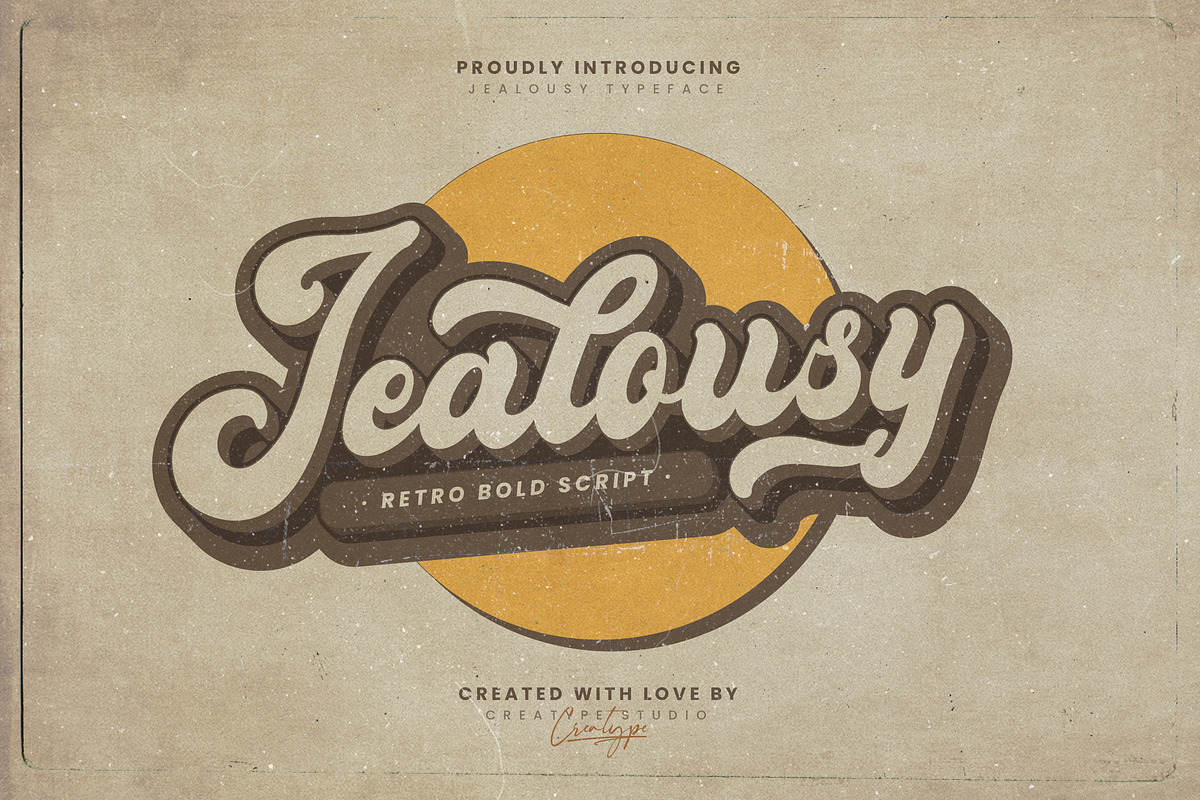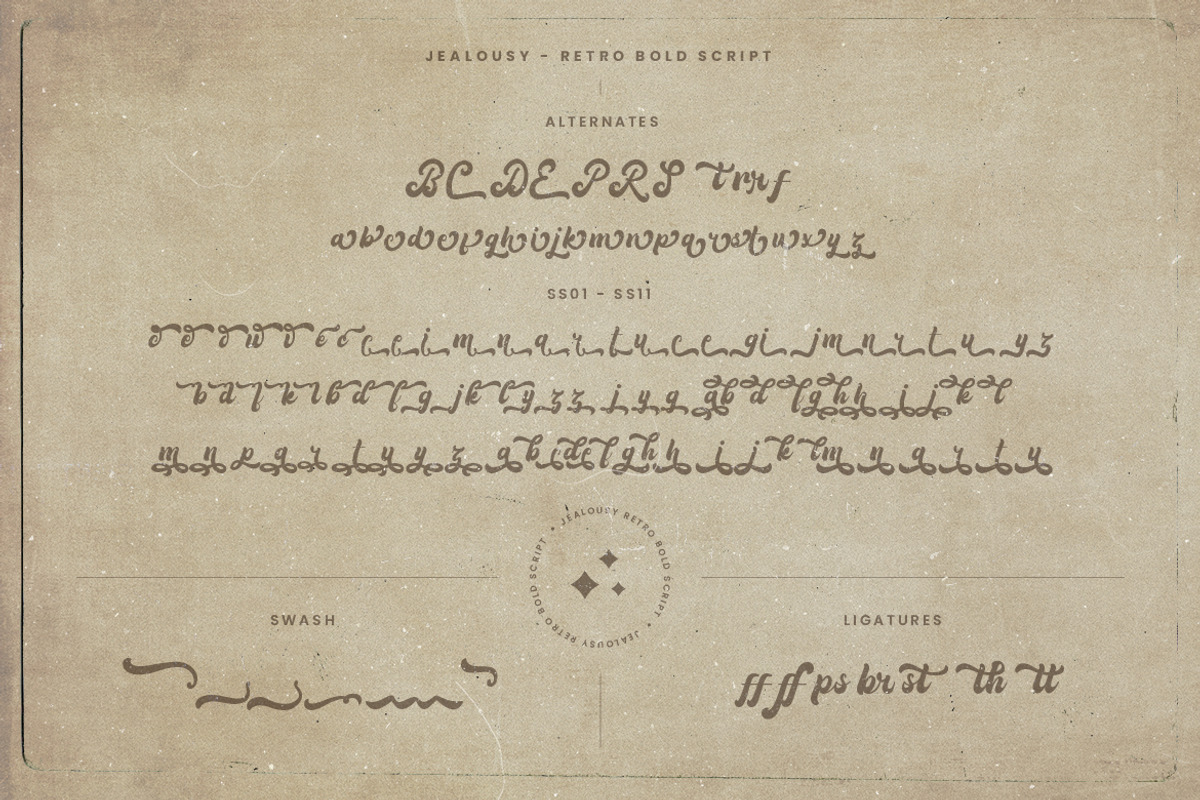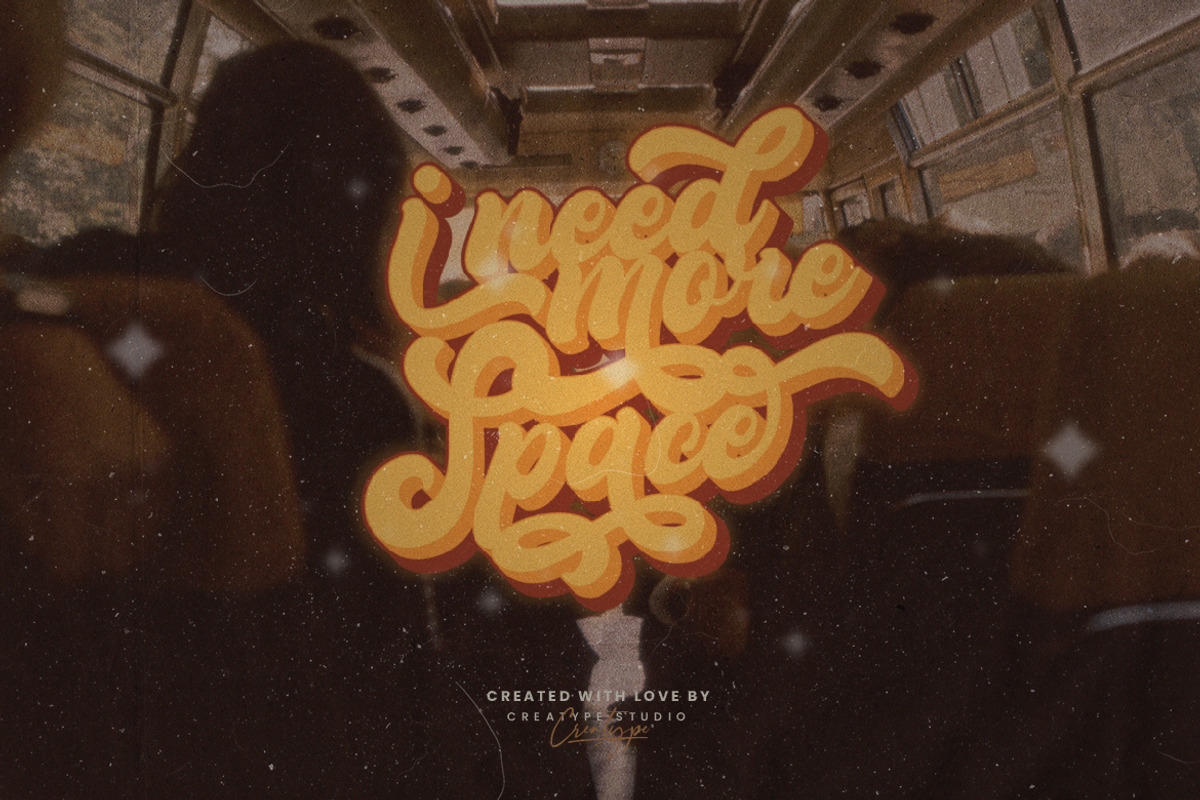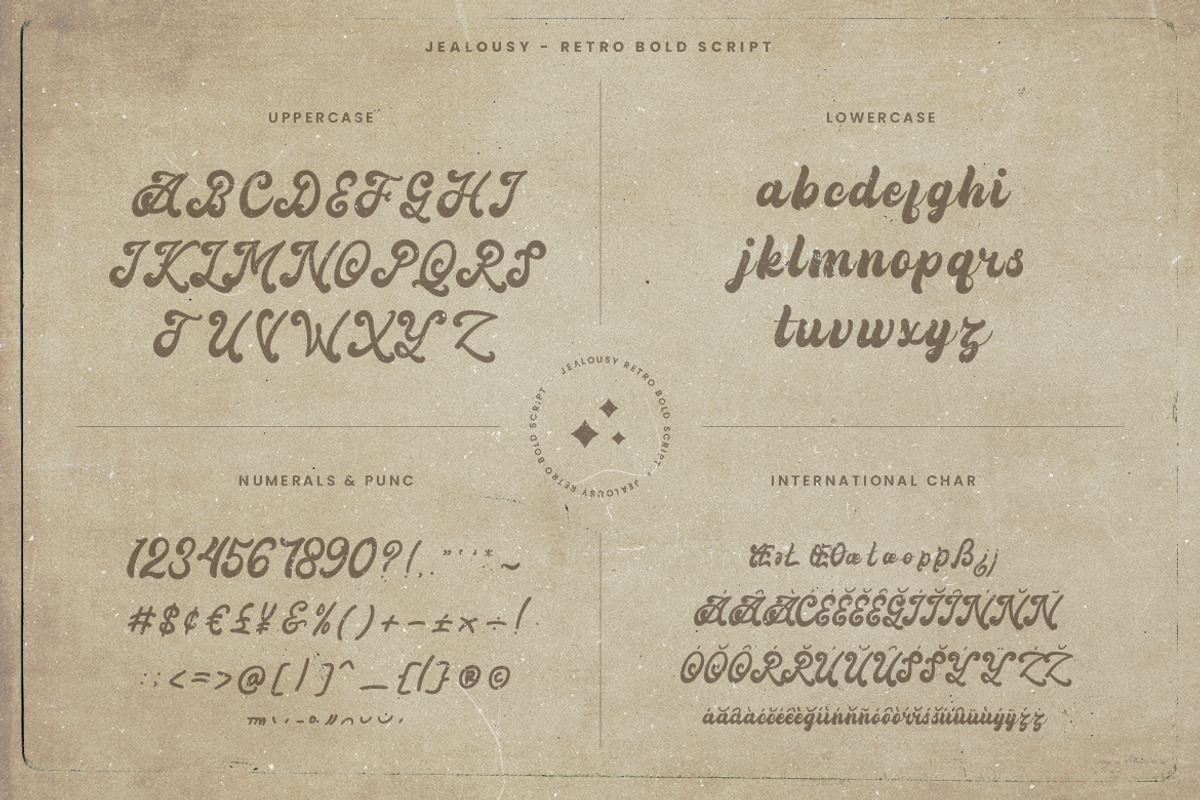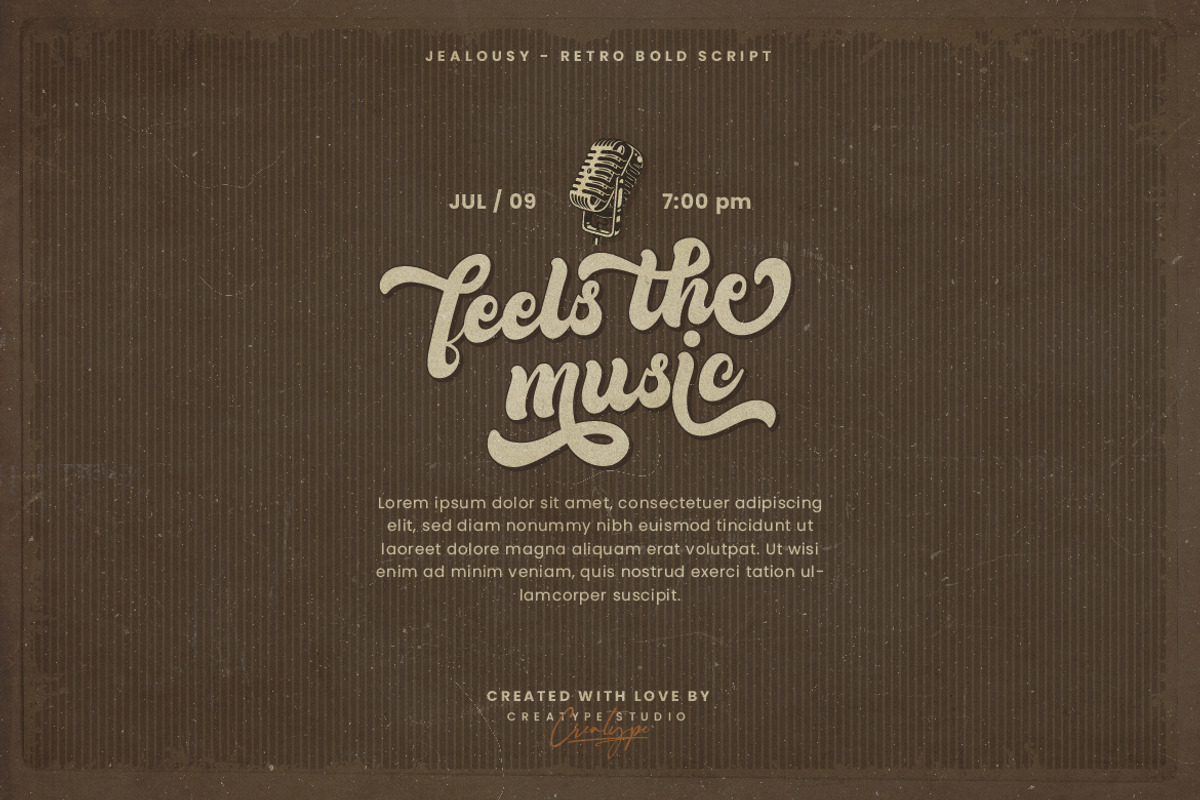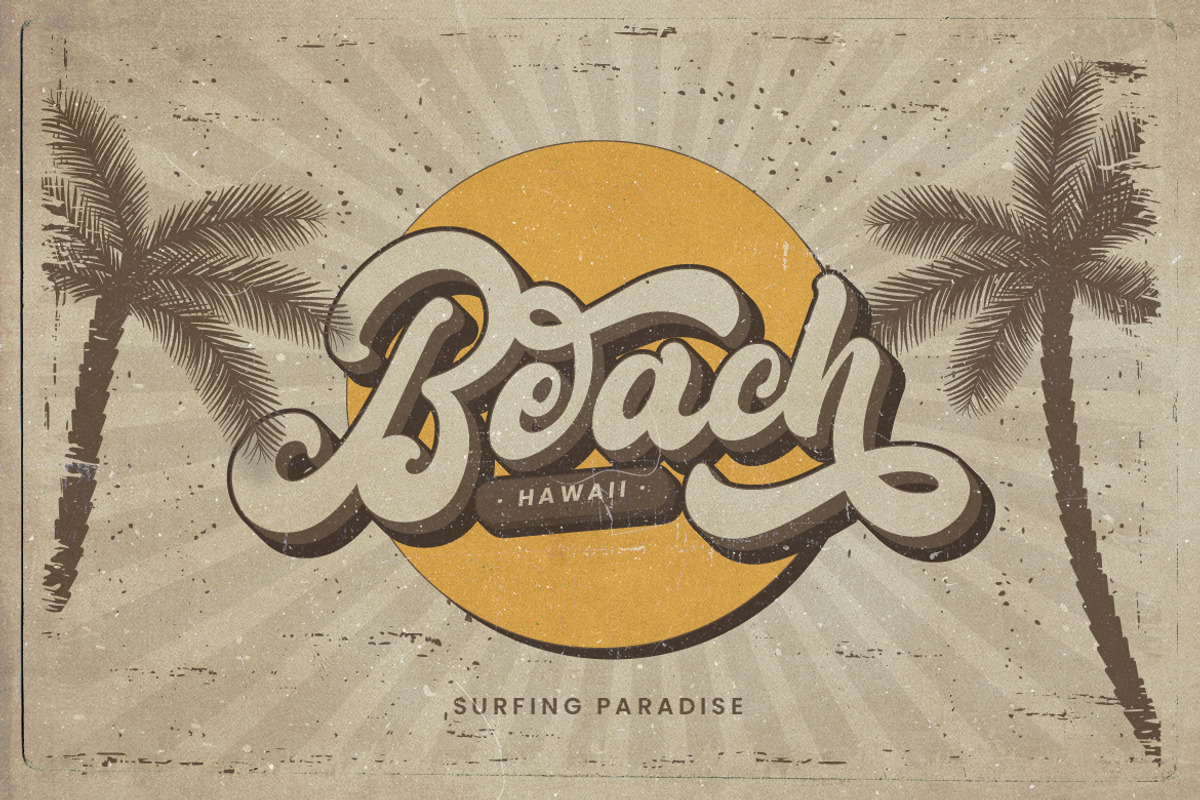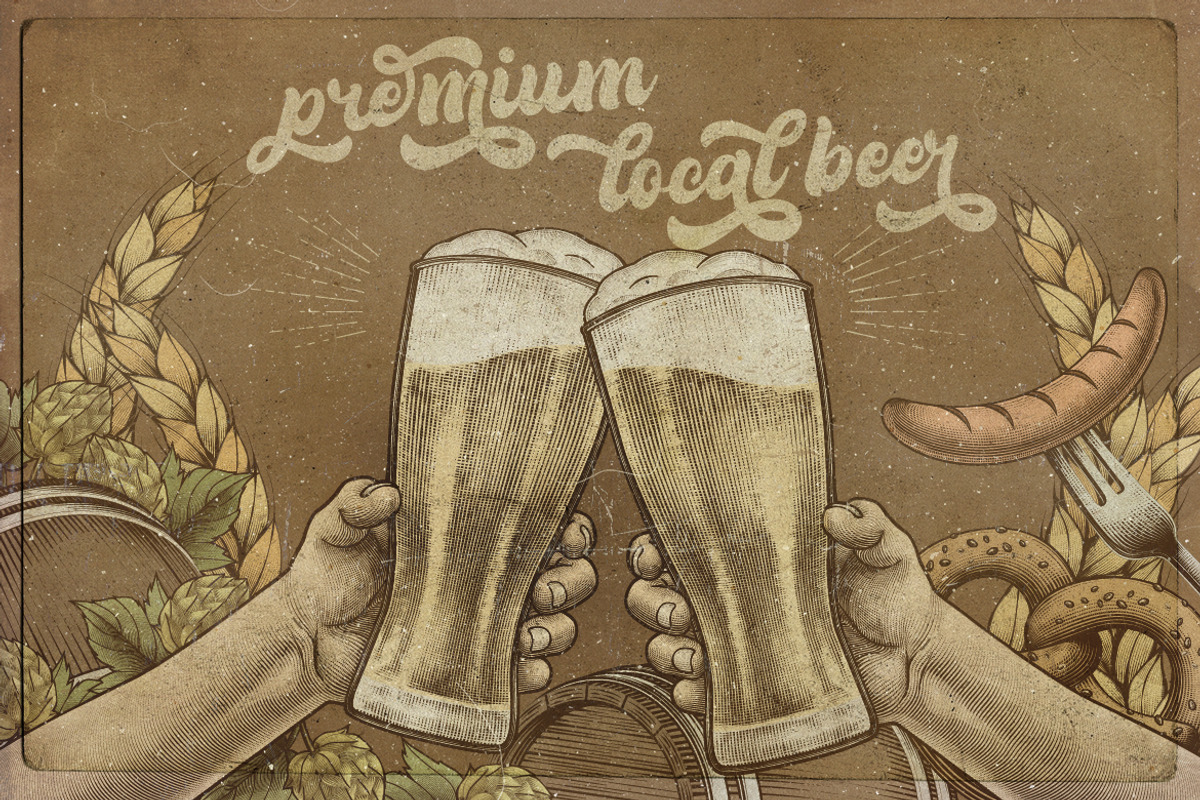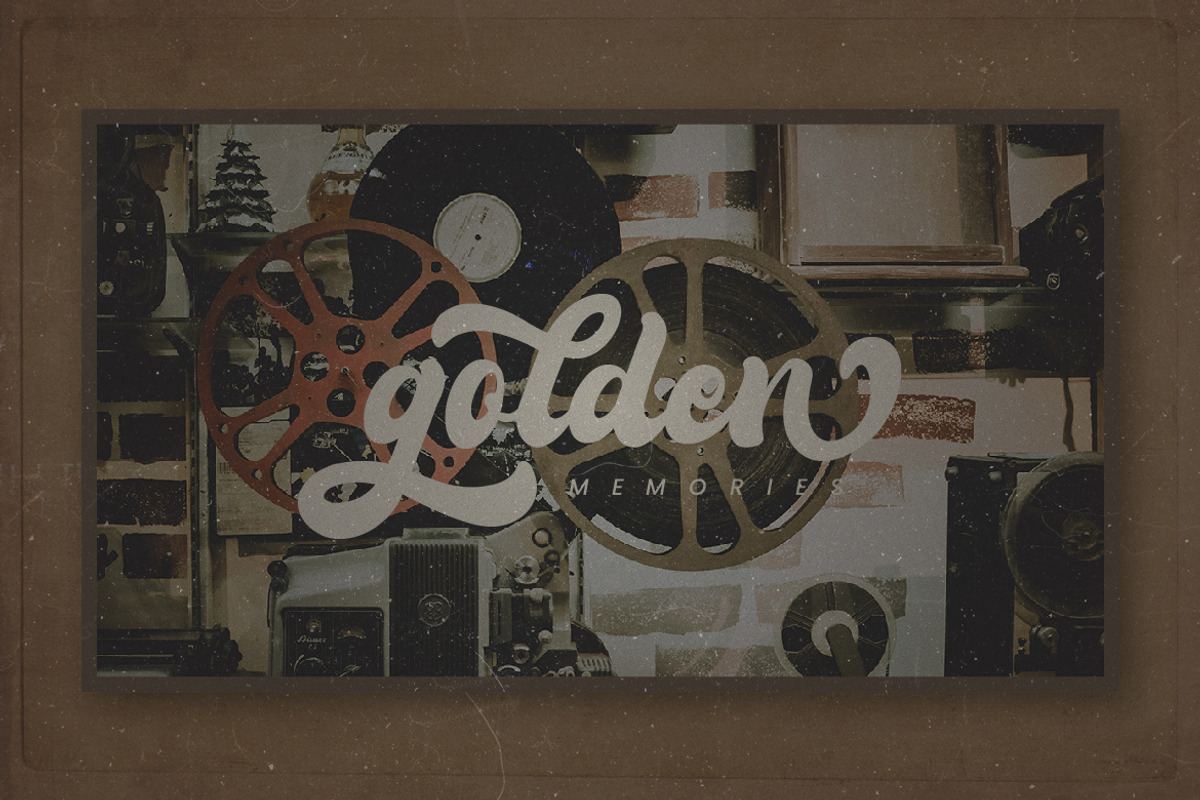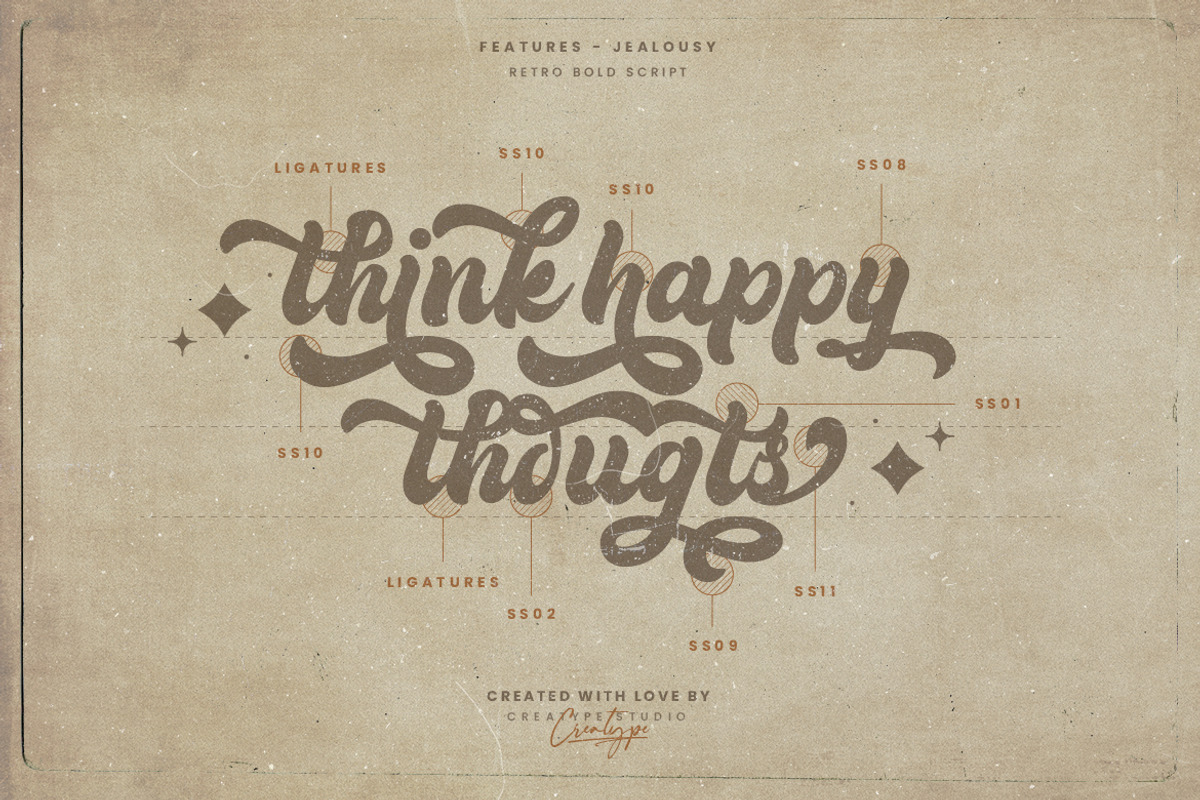
Jealousy Retro Bold Script
Jealousy Retro Bold Script comes with a retro-style bold script. Taking the feel of the 60s to 80s, Jealousy will bring you back to that year and feel it back.
Jealousy is perfect for branding projects, logo, wedding designs, social media posts, advertisements, product packaging, product designs, label, photography, watermark, invitation, stationery and any projects that need handwriting taste.
- Ligature & Alternate